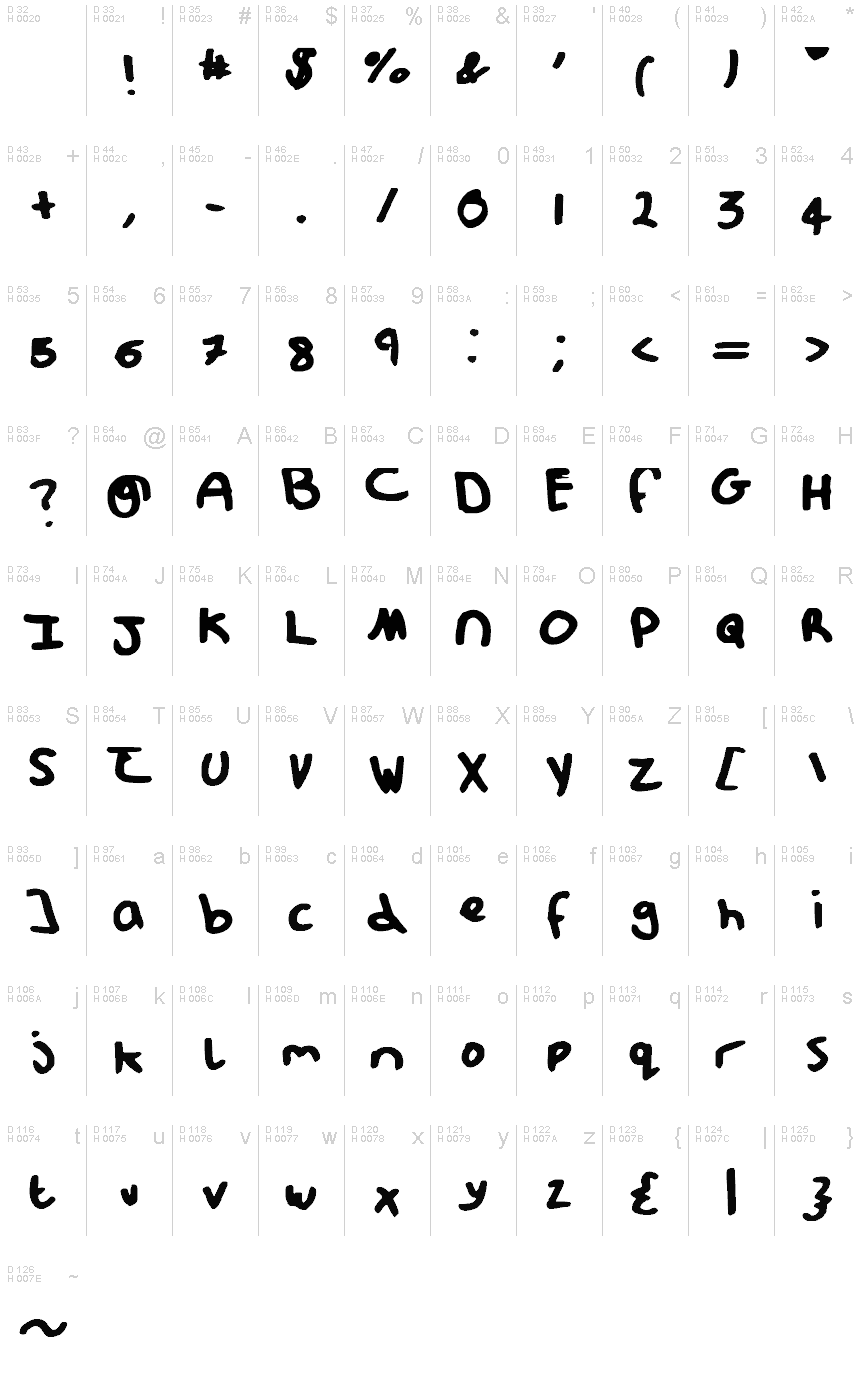
MessyPup
Messy Pup is a bold, handwritten font that embodies a spirited, playful charm. Designed by Emily Powell, this font exudes a delightful imperfection, with its organic strokes and playful curves. The bold, expressive letterforms lend a sense of energy and personality to any design, making it an excellent choice for branding, packaging, or editorial applications that seek to convey a lighthearted, whimsical aesthetic.
Its versatility allows it to seamlessly integrate into a wide range of design contexts, from children's stationery to casual event materials. The font's distinctive character and vibrant personality make it a standout choice for those seeking to add a touch of genuine, handcrafted flair to their visual communications.